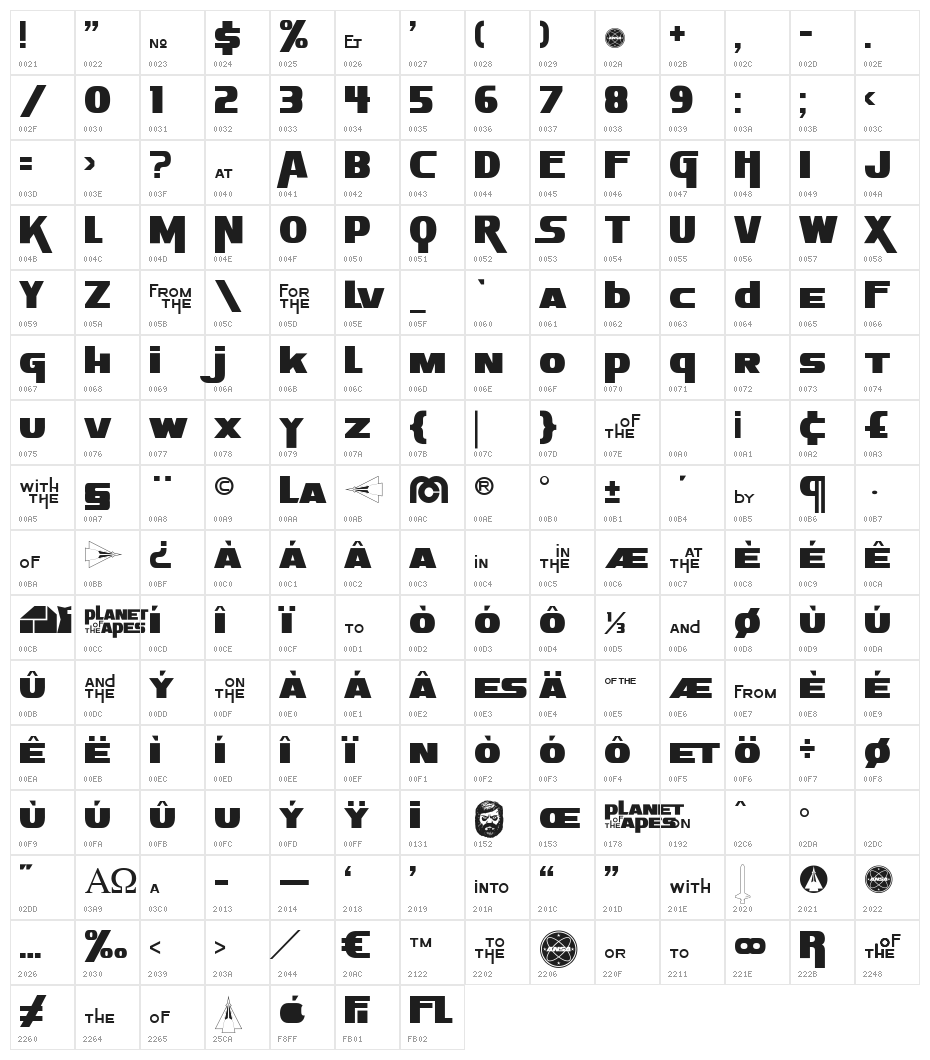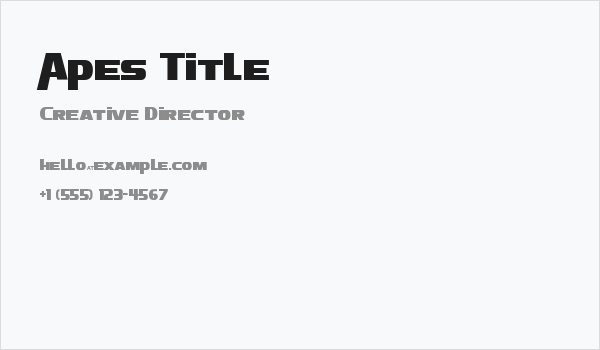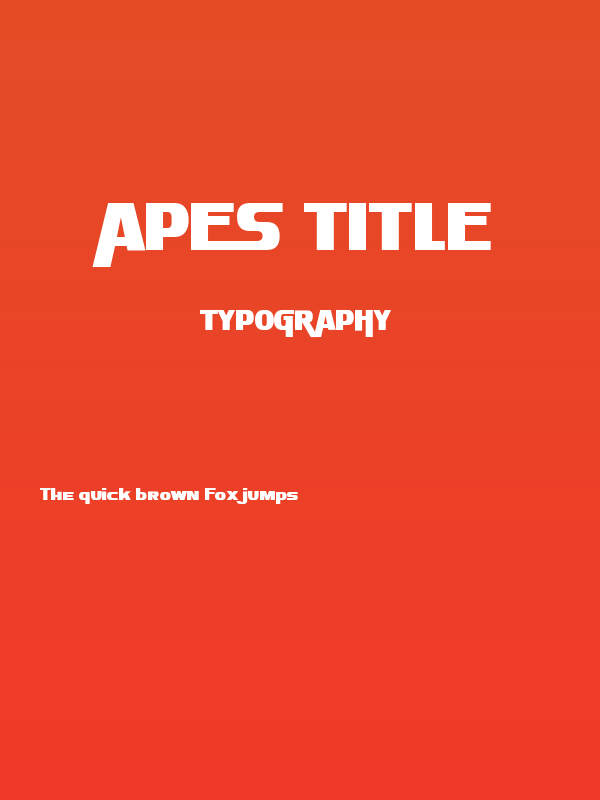
Apes Title Font
Apes Title Description
This font features a bold and striking design with a futuristic and geometric aesthetic. The characters are constructed with sharp angles and thick strokes, giving them a strong presence. The uppercase letters have a unique style, with some characters incorporating cut-out sections that add to the modern feel. The lowercase letters maintain the boldness, with consistent stroke widths and a slightly condensed appearance. Numbers are equally bold, ensuring readability and impact. Special characters are designed to match the overall style, providing a cohesive look across all elements.